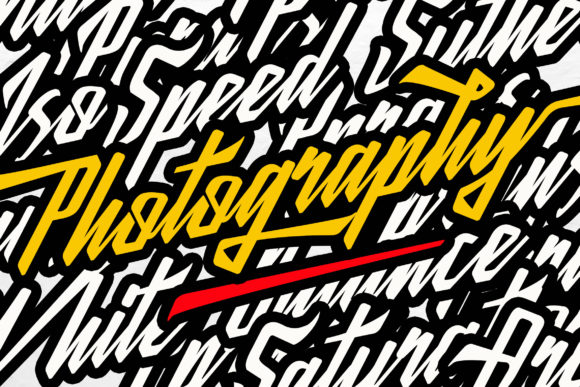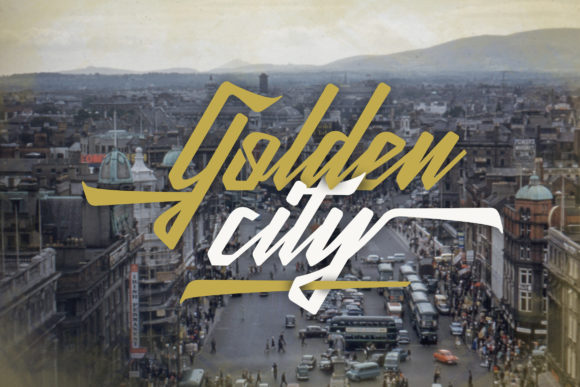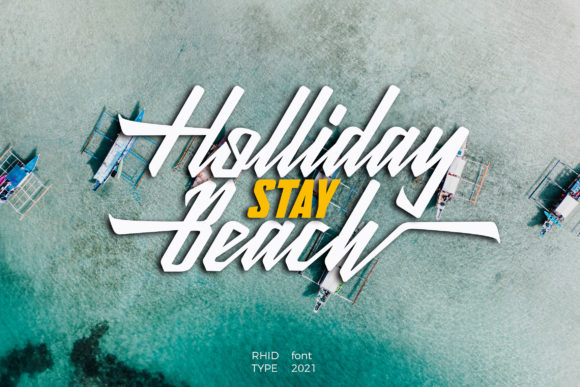
Introduction to Hollandia Font
Hollandia is a lovely and timeless handwritten font.
It is the best choice for creating eye catching logos, branding and quotes Hollandia is PUA encoded which means you can access all of the glyphs and swashes with ease.
Key Features of Hollandia Font